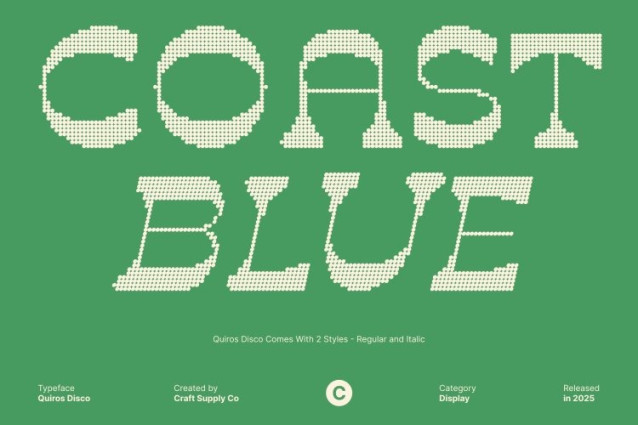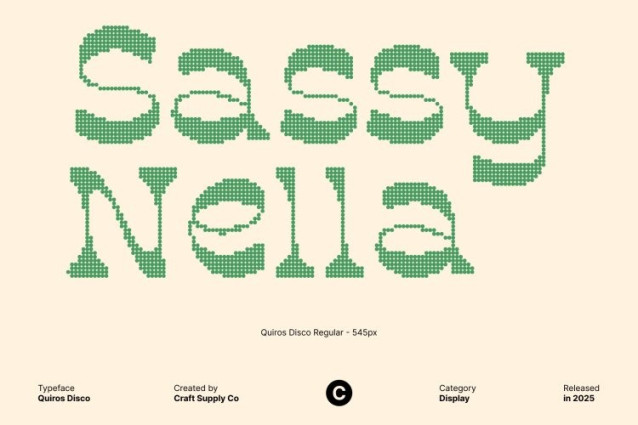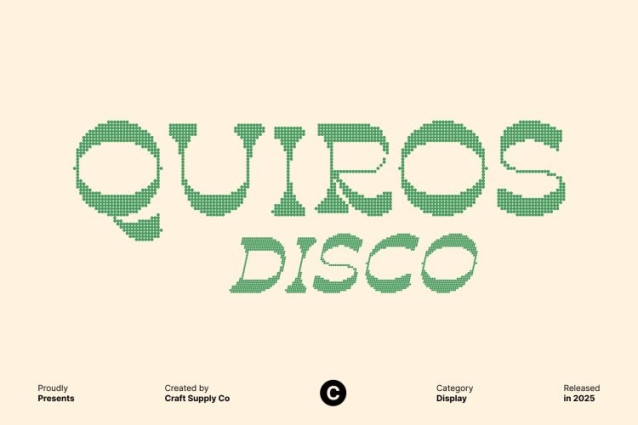
Quiros Disco Font
Quiros Disco Font This is a classic display font inspired by the bold, decorative letterforms of the 1970s. Its retro, groovy shapes and fluid curves instantly transport any design into an era of color, rhythm, and expressive typography. Every character embraces a playful, funky flow that feels energetic and full of personality, making it a true visual statement in any creative layout.
Disco Effect for Glamour and Vibration
The signature disco effect enhances each letter with sparkling movement and dynamic shine. This glamorous layer adds rhythmic visual energy, allowing the type to feel alive and radiant. The combination of shimmering highlights with groovy curves gives this font that distinctive disco-era charm perfect for designs that want to shine, dance, and stand out.
Perfect for Retro, Party, and Nostalgic Branding
This font thrives in projects that demand a bold nostalgic punch. Its expressive shapes capture joy and excitement, making it a top choice for retro posters, party promotions, vintage brand identities, music-themed artwork, or groovy headline graphics.
A Dynamic Fusion of Past and Present
By blending 1970s decorative typography with modern disco sparkle, this font becomes a versatile retro-modern hybrid. Designers can use it to evoke nostalgia while still maintaining a fresh, contemporary appeal. This balance makes the font suitable for both playful projects and stylized branding that needs character, charm, and a memorable look.